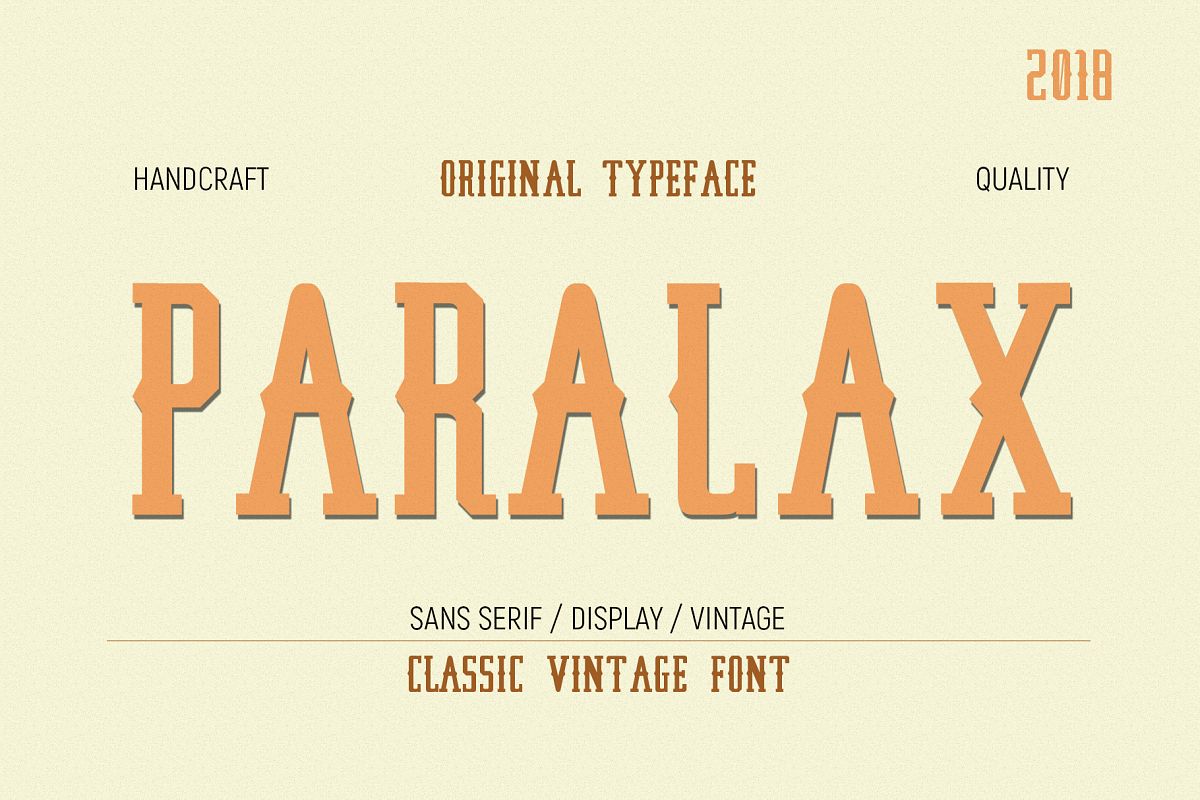
Hello there, here is the new typeface called PARALAX. it's perfect for you to give your design an authentic touch. This stuff created by handcraft and original